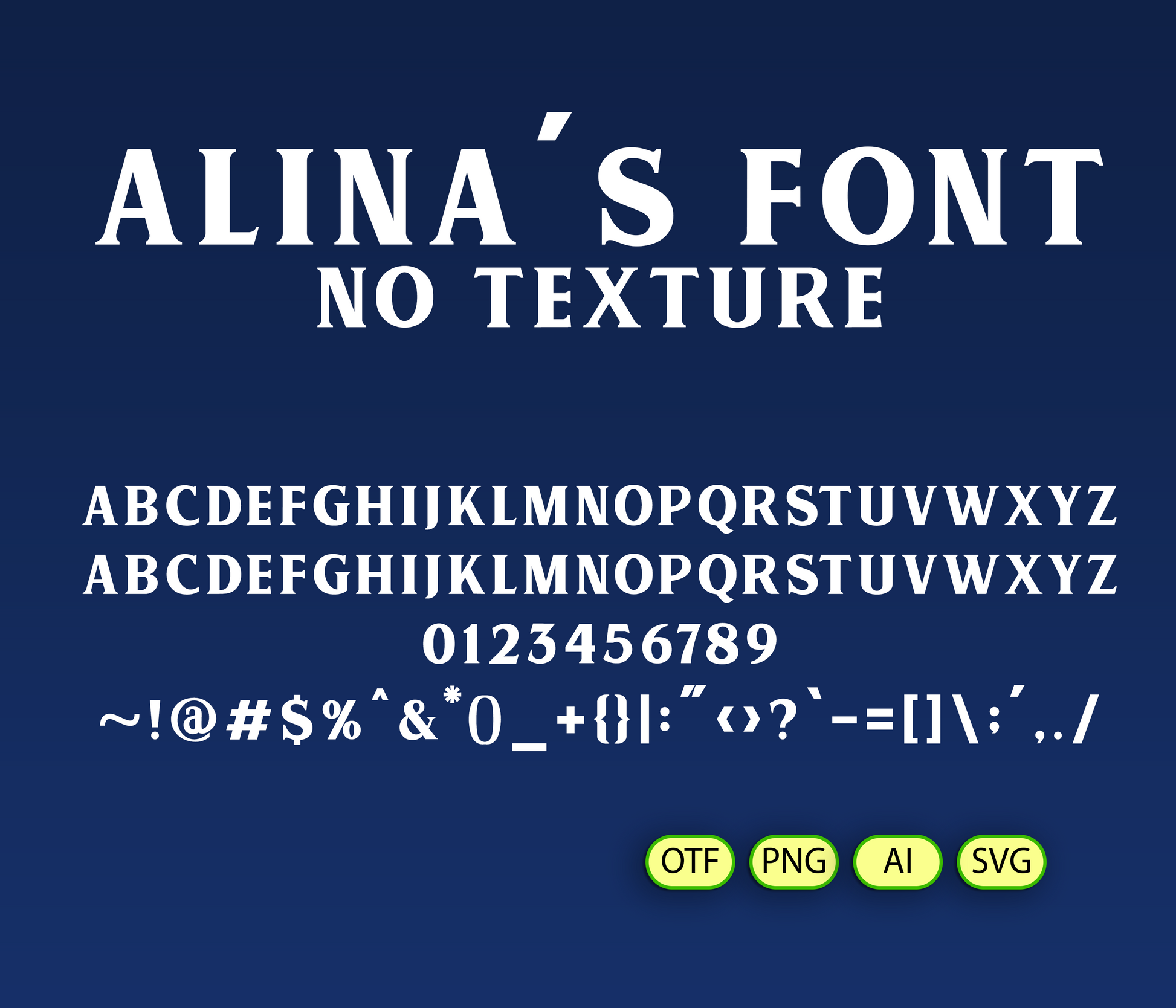
Survival Game Mystery Font Bundle
Step into the thrilling world of deadly games with our Survival Game Mystery font, capturing the essence of life-or-death challenges and psychological suspense. Perfect for thriller fans, game creators, event organizers, and designers, this font brings the intense, enigmatic spirit of high-stakes competitions to your projects. Create immersive materials, merchandise, or digital content with the psychological tension of strategic survival.
Our Survival Game Mystery font features sharp, dramatic lines and mysterious characters reflecting the intense world of deadly puzzles. Ideal for:
- Event Promotions: Create suspenseful invites, posters, and banners for escape rooms, mystery events, and themed parties that capture the spirit of strategic survival
- Merchandise Design: Perfect for t-shirts, posters, and accessories that showcase the dark allure of game theory and survival
- Digital Media: Enhance websites, blogs, and social media with dynamic headers and graphics that express the tension of life-or-death choices
- Gaming Content: Add authentic flair to game designs, streaming overlays, and creative projects inspired by psychological thrillers
- Personal Projects: Bring mysterious excitement to scrapbooking, DIY crafts, and home decor inspired by the world of strategic gameplay
Our font pays tribute to the beloved world of psychological survival games, empowering your designs with its intense and mysterious spirit. Whether crafting promotional materials, designing merchandise, or adding a dramatic touch to personal projects, this font communicates the bold essence of high-stakes gaming. Ready to inject thrilling suspense into your creations? This font is your key to exciting, impactful design.